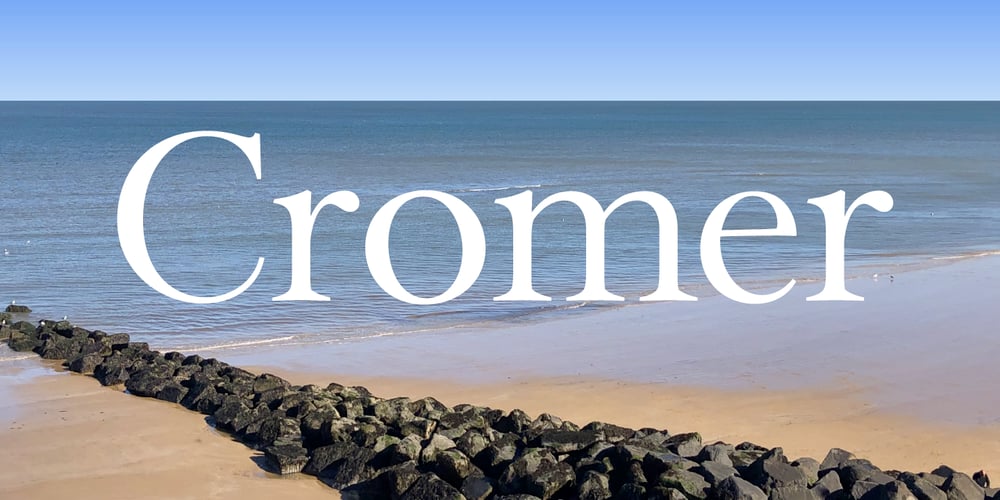
Cromer Font Family was designed by Nicholas Garner and published by AVP. Cromer contains 4 styles and family package options. Cromer is a transitional serif typeface created for effortless reading, perfect for lengthy texts in books and magazines, drawing its inspiration from countless historical typefaces going back hundreds of years.Choose Cromer for its versatility: OpenType features include oldstyle figures, ligatures, capital spacing, superscript, subscript, scientific inferiors, fractions, ordinals, small caps and capitals to small caps. Over 200 latin-based languages are catered for including localized forms for many.